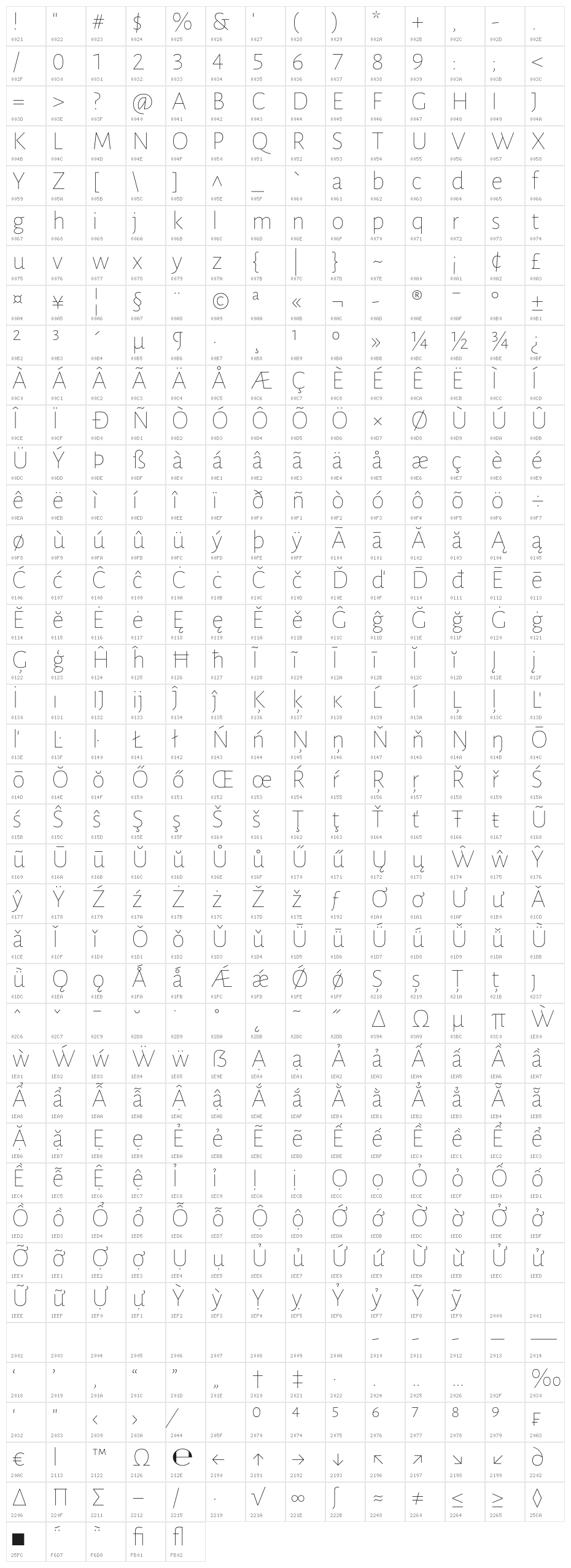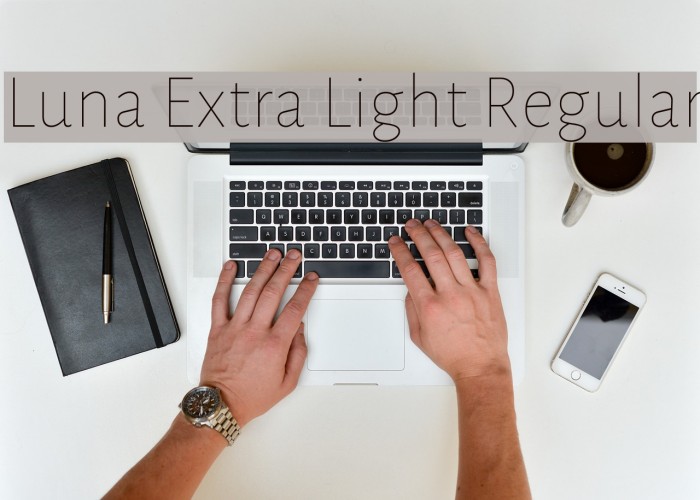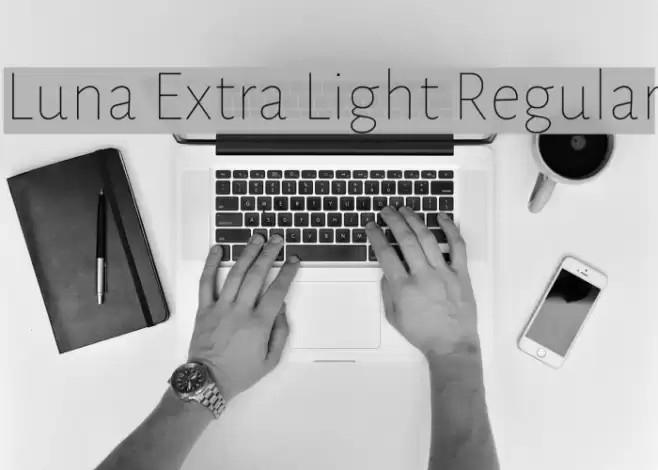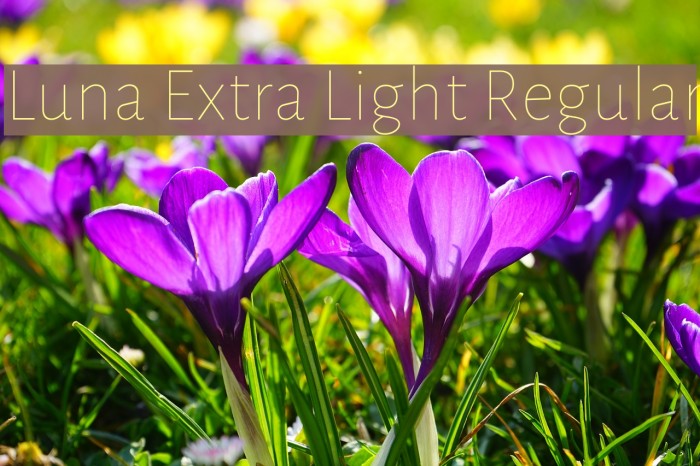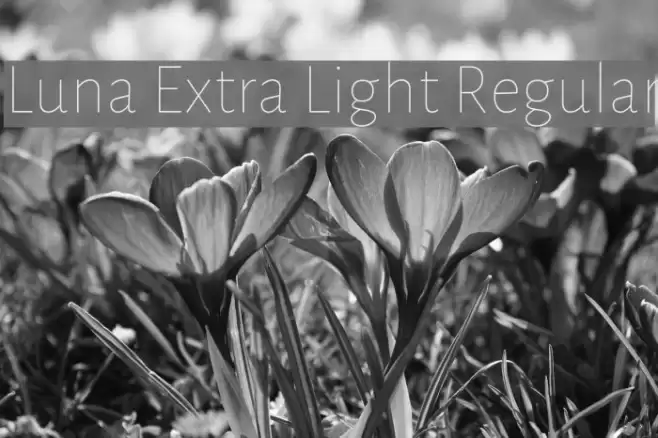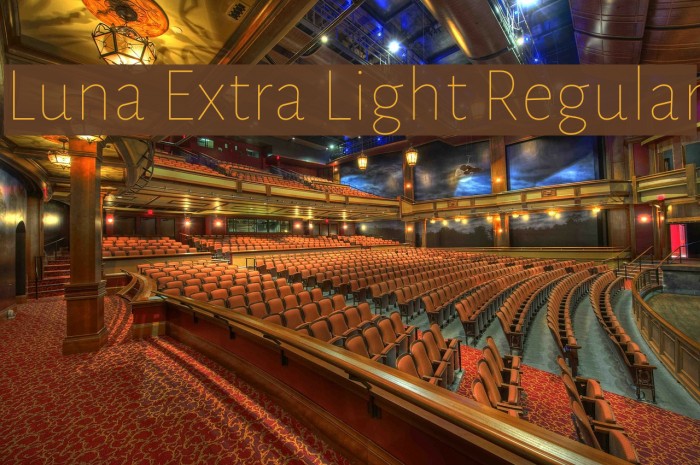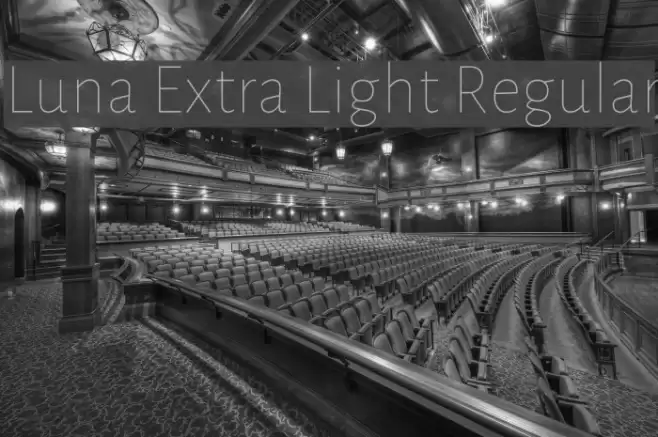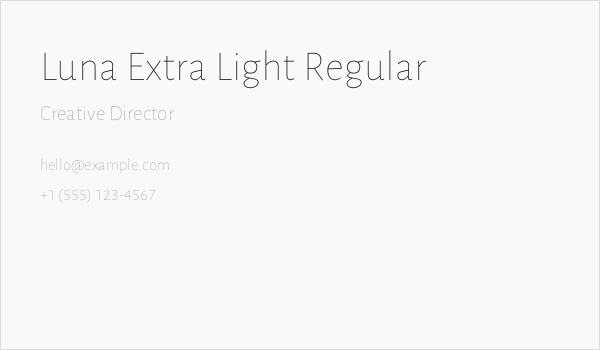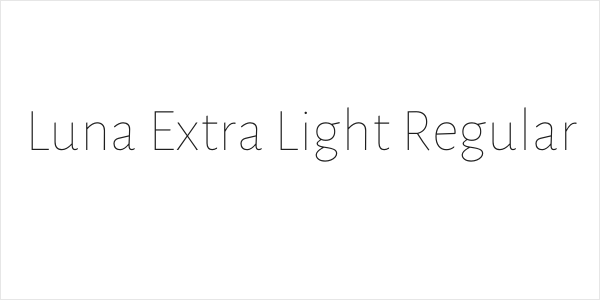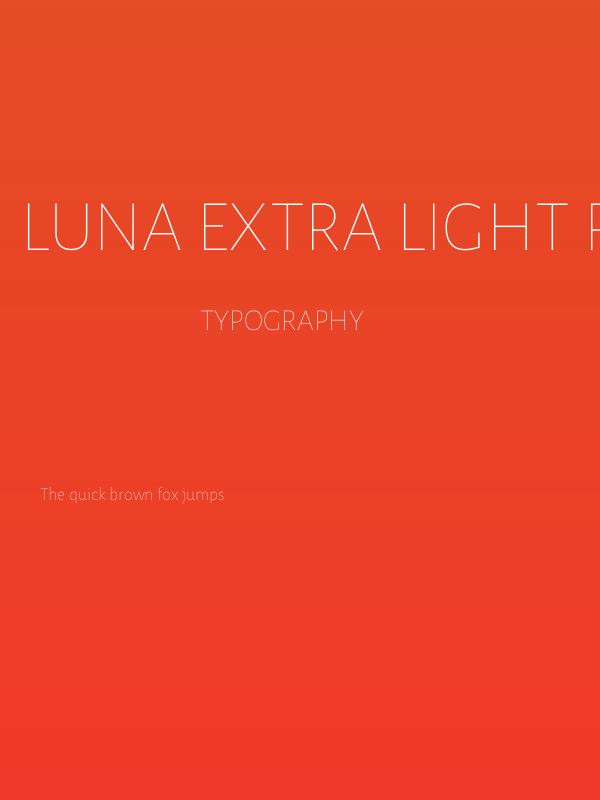
Luna Extra Light Regular Font
Luna Extra Light Regular Description
This font features a sleek and modern design with an extra-light weight, making it ideal for projects that require a minimalist and clean aesthetic. The characters are well-proportioned with a consistent stroke width, giving it a uniform appearance. The uppercase letters are tall and elegant, while the lowercase letters maintain a smooth and rounded form. The numerals are clear and easy to read, and the special characters are distinct and well-integrated into the overall design. This font is versatile and can be used in a variety of settings, from digital to print media.
| Proposed Projects | Ideal for branding, editorial design, websites, and minimalist posters. |